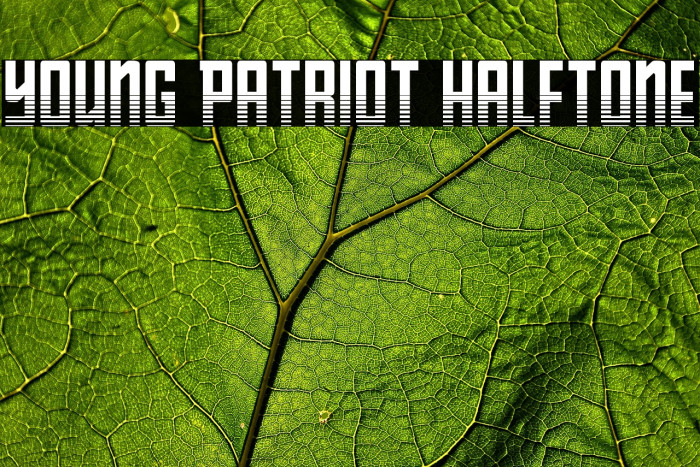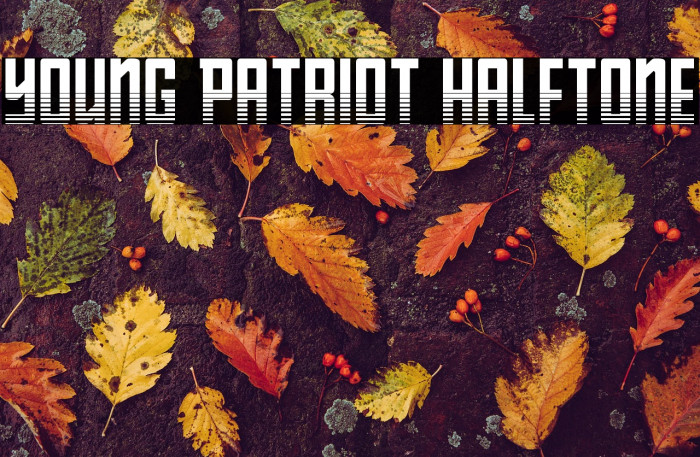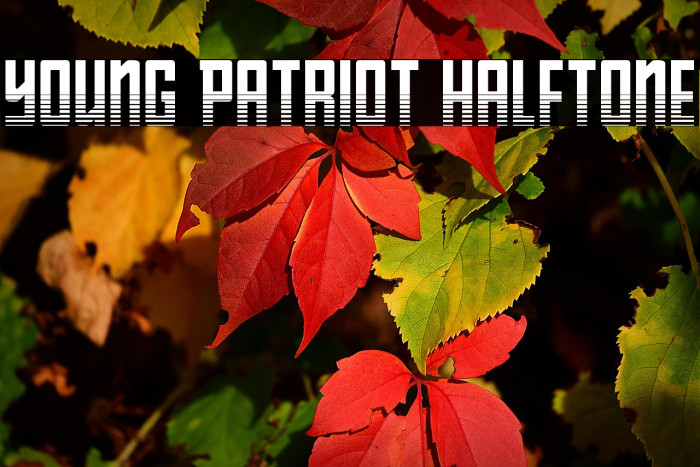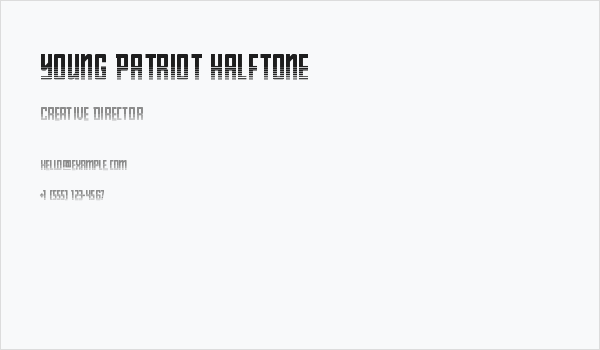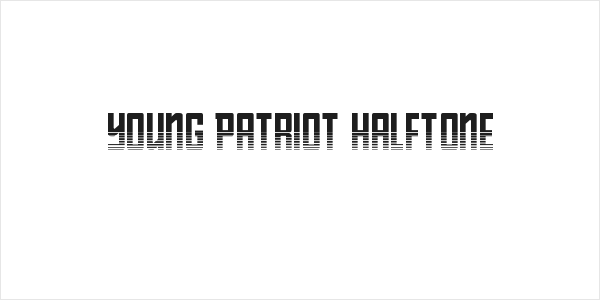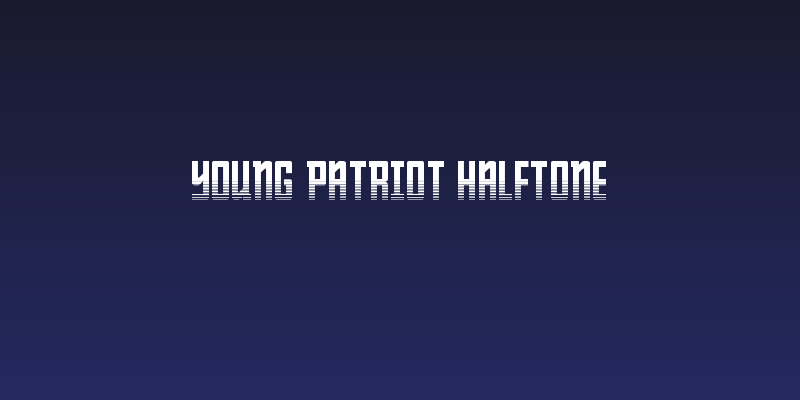
Young Patriot Halftone Font
Young Patriot Halftone Description
This font features a bold and striking design with a halftone effect that gives it a unique, textured appearance. The characters are constructed with a series of horizontal lines that create a gradient effect, transitioning from solid black at the top to lighter shades towards the bottom. This design choice adds depth and dimension, making the font stand out. The uppercase letters are uniform in height, while the lowercase letters maintain a consistent style, ensuring readability. The numerals and special characters follow the same design principles, integrating seamlessly with the alphabet. This font is ideal for projects that require a modern and edgy aesthetic, capturing attention with its distinctive style.
| Proposed Projects | Ideal for posters, album covers, branding, and any design needing a bold, modern touch. |